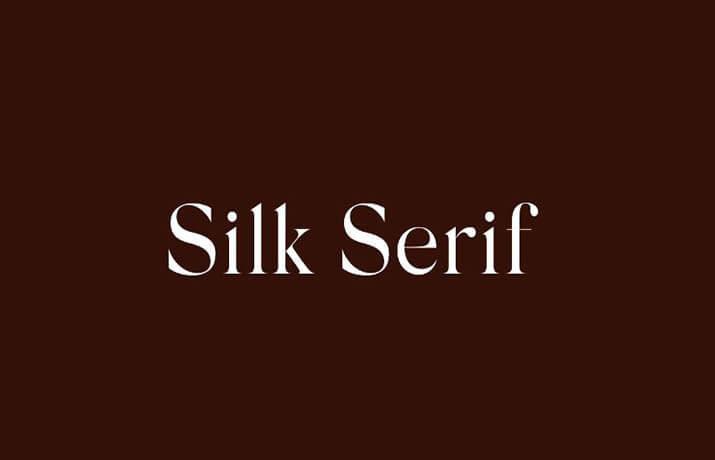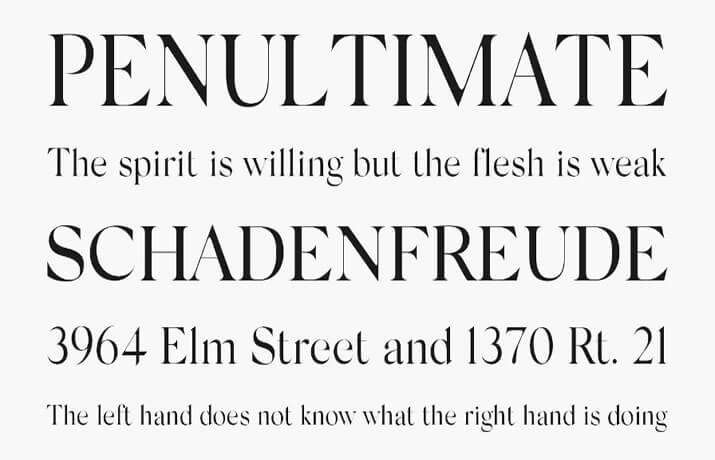
Silk Serif Font is a high-contrast typeface that creates characters based on a strict grid. A great thing about this font is its unique, triangular serif.
This font family was designed by Rakel Tómasdóttir and published through the Icelandic foundry SilkType in 2017.
The main feature of the typeface is the disconnection between the bowls and the stems. However, the bowl is too close to the stem, creating the illusion of connection.
Silk Serif contains 14 different styles and this font includes 31 special characters with accents and 26 letters of the alphabet in upper and lowercase.
You can use this remarkable font for jewelry titles, brochure layouts, card designs, receipts, articles, magazines, headers, flyers, social media posters, documentation purposes, etc.